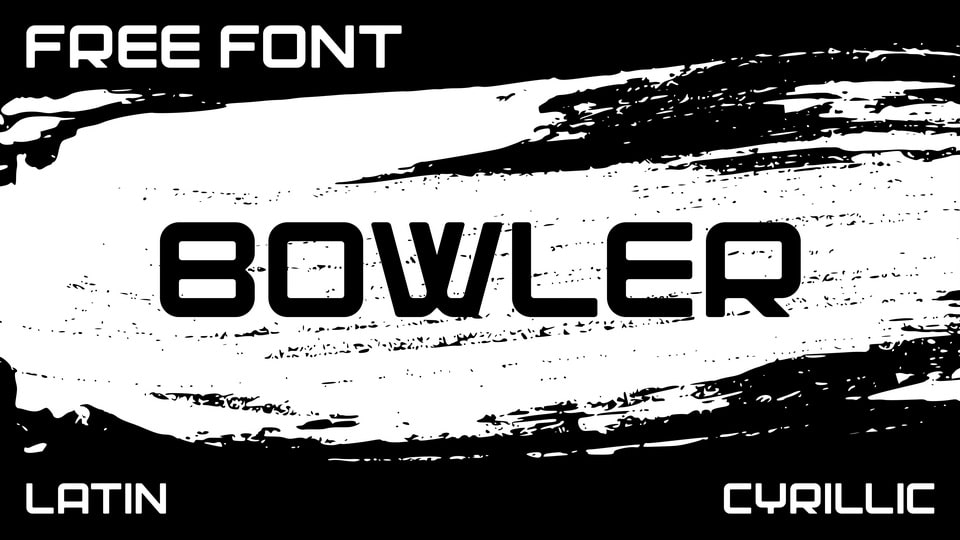
Download Bowler font, a bold geometric display typeface. Bowler meant for use in large sizes and works in an effective way in headlines.
Designer: Vladimir Klenov